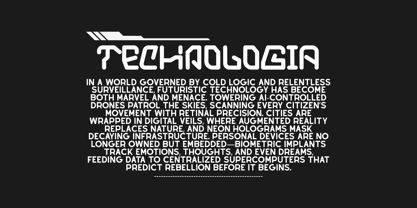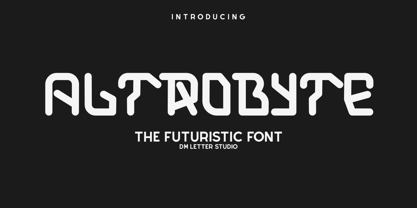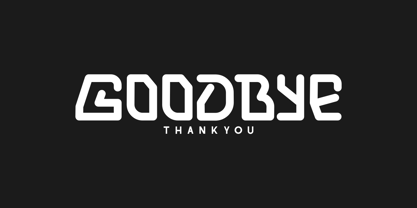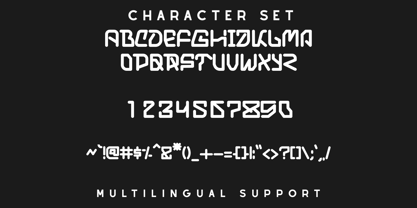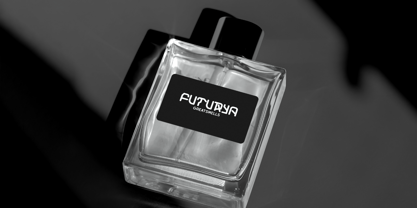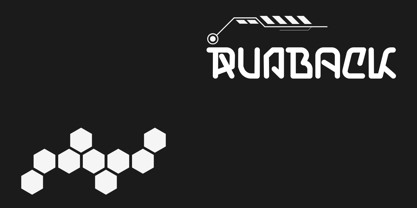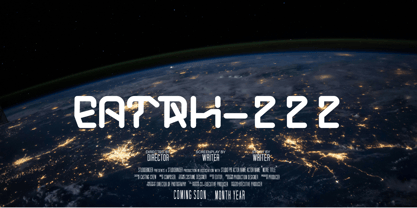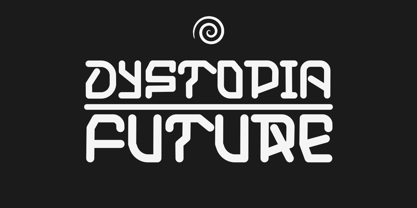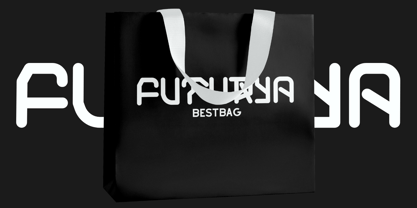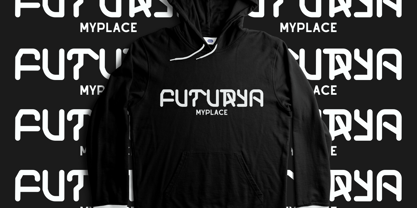
Altrobyte
by DM Studio
The Altrobyte Font Family was designed by Dimas Prasetyo and published by DM Studio. Altrobyte contains 1 styles. More about this family
Step into the future with Altrobyte, a cutting-edge futuristic font designed for visionary creatives who demand both luxury and modern precision. With clean geometric lines and sleek curves, Altrobyte is the perfect blend of elegant typography and bold innovation ideal for logo design, high-end food packaging, and premium digital products.
Whether you're branding a luxury restaurant, crafting a modern tech logo, or elevating your food product's visual identity, Altrobyte brings clarity, power, and futuristic sophistication to every letter.
Its commanding luxury bold style makes your work stand out while keeping it minimal, elegant, and modern.
• Luxury Logo Design – Clean, futuristic looks for upscale brands
• Modern Food Branding – Ideal for gourmet, health, or tech-based food products
• Elegant Product Packaging – Tech-inspired design with a refined edge
• Startup & Technology Brands – Futuristic yet timeless typography
• Luxury Bold Headlines – Make a bold, classy statement in print or web
• Futuristic Sans-Serif Style
• Bold & Minimal Letter Construction
• Uppercase + Numerals
• Perfect for Tech, Fashion, Food, and Corporate Brands
Altrobyte isn’t just another futuristic typeface it’s a luxury bold font created to help you design logos, packaging, and visuals that feel premium, modern, and ahead of their time.
Designers: Dimas Prasetyo
Foundry: DM Studio